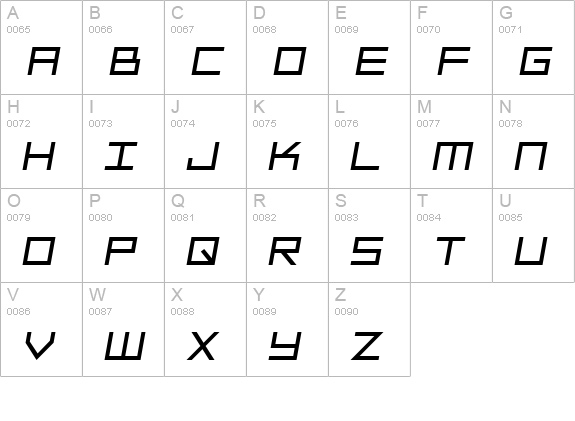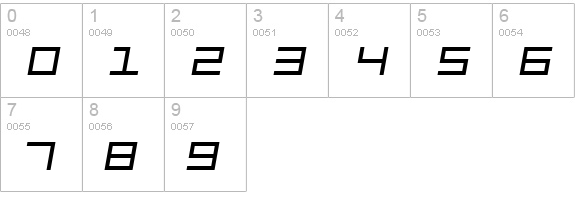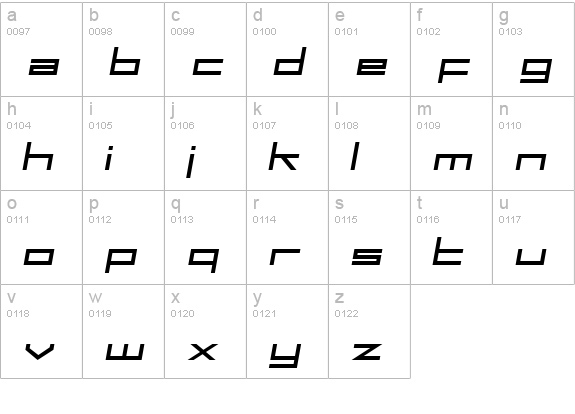
SF Square Head Italic Font Details
SF Square Head Italic is a distinctive, italic variant in the SF typeface family \xE2\x80\x94 well suited to design and typography projects.
SF Square Head Italic is a stunning and versatile font that brings a unique touch to any design project. With its sleek and modern appearance, this font is perfect for creating eye-catching logos, headlines, and titles. The italic style adds a touch of elegance and sophistication, making it ideal for high-end brands, fashion magazines, and luxury products. What sets SF Square Head Italic apart is not only its aesthetics but also its accessibility. This font is freely available to download at FontsMarket.com, allowing designers and creatives to use it in their projects without any limitations. Whether you're a professional designer or a hobbyist, this font offers endless possibilities to elevate your work and make a lasting impression. The clean lines and geometric shapes of SF Square Head Italic make it highly legible, even in smaller sizes. This makes it a perfect choice for body text in brochures, flyers, and websites. Its readability ensures that your message is effectively conveyed, while its unique style adds a touch of personality to your design. SF Square Head Italic is designed with attention to detail, ensuring that each character is carefully crafted for a harmonious and visually pleasing outcome. Its sleek and modern appearance makes it suitable for a wide range of design projects, from branding and advertising to packaging and editorial layouts. Whether you're looking to create a bold and memorable logo or add a touch of sophistication to your next design, SF Square Head Italic is the perfect choice. Download this font for free at FontsMarket.com and unleash your creativity today.